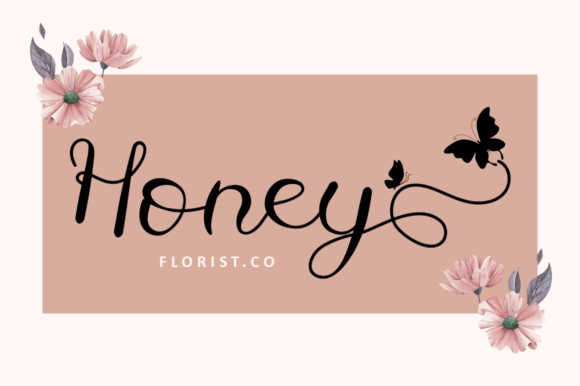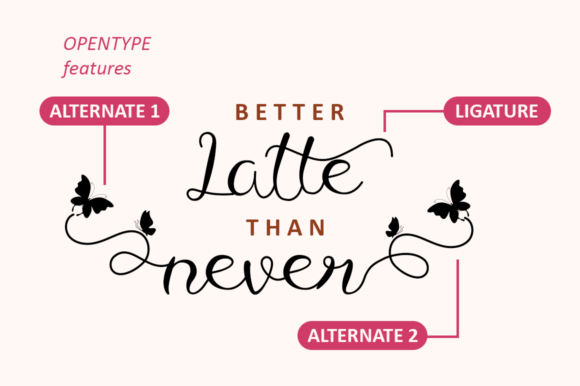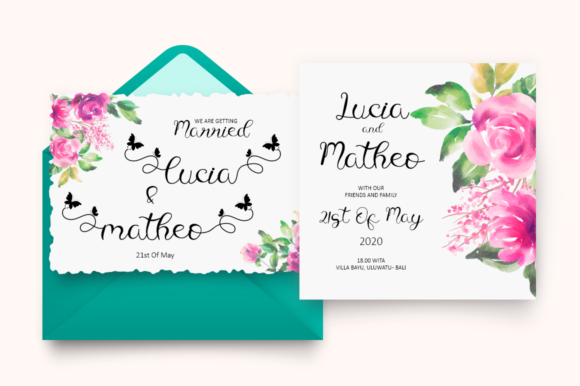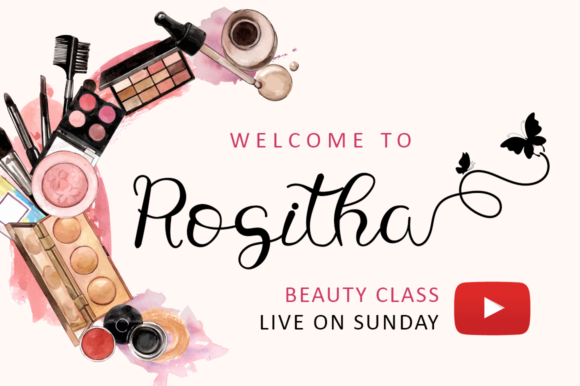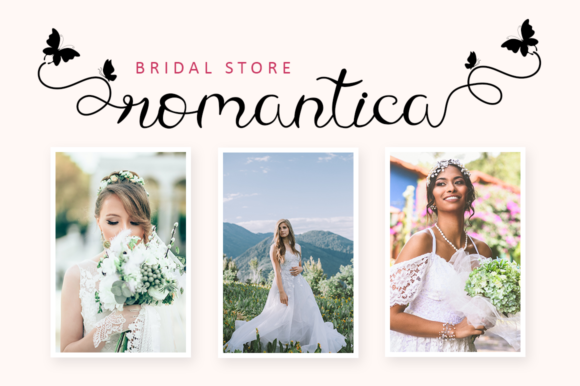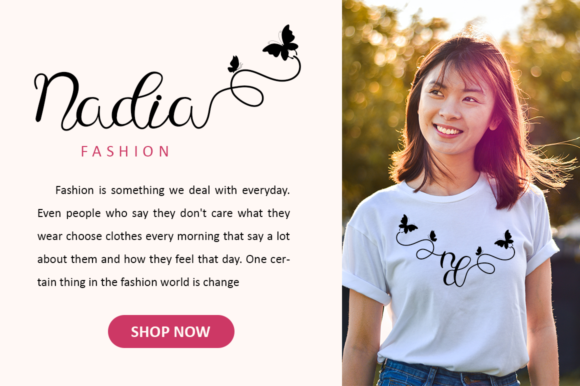
The Perfect Touch: Introducing the Butterfly Font
Have you ever stared at a blank page, struggling to find the perfect font to bring your design to life? I know I have. It’s that moment when you’re searching for a font that captures the essence of your creative vision, and suddenly, it hits you – the perfect font appears. For designers, finding the right font can be the difference between a good design and a great one.
Enter the Butterfly Font, a beautiful handwritten font that exudes elegance and sophistication. With its modern look and PUA encoded features, this font is a treasure trove of creative possibilities. Whether you’re designing logos, branding, or social media posts, the Butterfly Font is the perfect addition to your design toolkit. Its wealth of special features, including alternate glyphs and ligatures, make it a valuable asset for any designer looking to add a touch of class to their work.
Key Features of Butterfly Font
- Unique Characteristics: The Butterfly Font features a unique blend of modern and vintage elements, with intricate details and subtle flourishes that give it a distinctive and elegant look.
Designer Review: Butterfly Font
Overall, I think the Butterfly Font has some lovely qualities, but also a few drawbacks that might make it less suitable for certain projects. ✨
- The fluid, whimsical curves of the font are perfect for creating a sense of airiness and lightness.
- The font’s subtle variations in letterform make it engaging to read and add visual interest to text.
- The font’s high x-height makes it highly legible, even at smaller font sizes.
- The font may be too delicate for use in bold, headline-heavy contexts.
- The font’s fluidity can sometimes make it difficult to read at very small font sizes.
- The font may not be suitable for use in corporate or formal contexts, due to its playful, whimsical feel.
Overall, I think the Butterfly Font is a great choice for projects that require a touch of elegance and whimsy, such as children’s books, fashion branding, or lifestyle magazines. However, it may not be the best fit for projects that require a more formal or serious tone.
Getting the Most Out of Butterfly Font
For best results, use the Butterfly Font in bold or italic styles to add emphasis.
Pair the font with a simple background to let the text stand out.
Use the font in combination with other creative elements, such as illustrations or graphics, to add visual interest.
The Butterfly Font is ideal for:
Children’s books and educational materials.
Brand identity and marketing materials.
Any project that requires a playful and whimsical touch.
Alternatives to Butterfly Font
Great Vibes is a modern, elegant script font that’s perfect for creating a sense of sophistication and refinement. It’s ideal for use in titles, headings, and other high-impact elements where you want to make a statement.
Compared to Butterfly Font, Great Vibes has a more refined and polished look, with cleaner lines and a more consistent flow. It’s a great choice when you want to convey a sense of luxury and high-end style.
Carolyna Pro is a beautiful, handwritten font that’s perfect for creating a sense of warmth and personality. It’s ideal for use in titles, headings, and other elements where you want to add a touch of whimsy and charm.
What is the character set for the Butterfly Font?
The Butterfly Font includes a standard character set, including uppercase and lowercase letters, numbers, and punctuation. It also includes a range of special characters, including accented letters and symbols. The font is designed to work well in a variety of languages, including English, Spanish, French, and more.